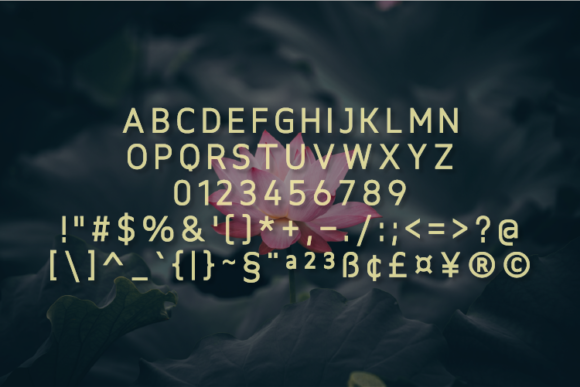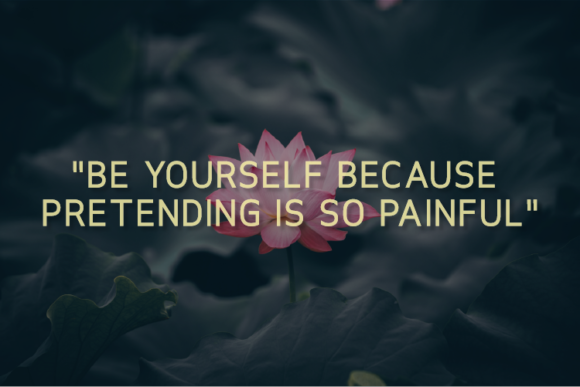
Introduction to Roselfold Font
Remember that moment when you finally nailed down the perfect design concept for your creative project? The one where everything comes together, and you can almost taste the satisfaction of a job well done? That’s exactly what the right font can do for your design – make it pop and give it a professional touch.
As a designer, you’re always on the lookout for high-quality design resources that can elevate your work and help you stand out in a crowded field. That’s where the Roselfold Font comes in – a minimal and neat sans serif font that’s perfect for a wide range of projects. With its clean lines and transparent background, it’s a versatile design tool that can be used in everything from branding and advertising to digital products and websites.
Key Features of Roselfold Font
- High-quality, free download design resource ideal for creative projects
- Unique, hand-drawn design with a transparent background for versatile use
- Features a high-resolution design (up to 1024 x 1024 pixels) for crisp and clear display
- Designed to be easily scalable, suitable for use in various font sizes and applications
- Perfect for use in digital and print media, including logos, graphics, and typography
- Includes a comprehensive character set, covering a wide range of languages and symbols
Honest Review: Roselfold Font
As a designer, I’m always on the lookout for unique and versatile design resources to elevate my creative projects. The Roselfold Font is one such resource that caught my attention.
What works well about this font is its ability to seamlessly blend modern and traditional elements, making it perfect for a wide range of design applications. The high quality of the font is evident in its crisp lines and clear typography.
- ✨ Customizable: The Roselfold Font comes in a range of styles and weights, allowing designers to mix and match to suit their creative vision.
- ✨ Transparent background: This feature makes it easy to superimpose the font over images or backgrounds, adding an extra layer of depth to designs.
While the Roselfold Font is a great addition to any designer’s toolkit, I do have a few reservations. The font can appear cluttered if not used thoughtfully, and some users may find the wide range of styles and weights overwhelming.
- ⚠️ Overwhelming options: With so many styles and weights to choose from, designers may struggle to decide which one to use.
Overall, I’m impressed with the Roselfold Font’s potential and would definitely consider using it in future design projects. However, I do think it could benefit from a more streamlined and user-friendly design process.
Tips for Getting the Most Out of Roselfold Font
Use Roselfold Font as a design resource for your next creative project. Experiment with different font sizes, colors, and styles to create a unique look. You can also combine Roselfold Font with other design elements for a cohesive and visually appealing design.